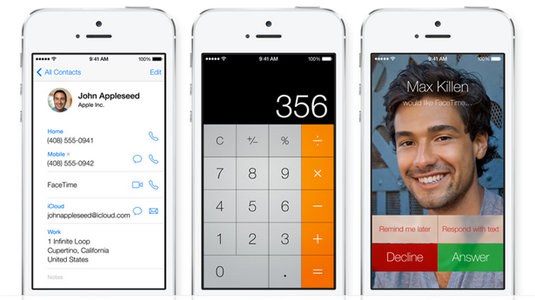
Apple ditches "too thin" font from iOS 7
Beta 3 introduces a new, thicker system font to the new operating system. What else might Apple change before the full release?
When it comes to design, Apple has in the past been characterised - in both positive and negative terms - as perfectionist control freaks. But here's a clear sign that's no longer the case. With the release of the third beta of iOS 7, it's responded to widespread criticism among designers of its typography - and replaced the strikingly thin system font Helvetica Neue Light altogether. Downloading the new version of the iOS 7 beta now sets the main font as the thicker Helvetica Neue Regular.
So far the response has been a positive one from the design community. As Marco Arment, creator of Instapaper, argues in this blog post: "Light weights look cool (more so at larger sizes) and work well in advertising and logos, but are generally harder to read. The system font’s most important job is to be legible to as many people as possible in as many conditions as possible, so the previous choice was simply a bad design choice."
If something as fundamental as a system font can be changed at this stage then two things are clear: Apple is clearly listening to designers, and the design of iOS 7 is clearly not set in stone. Is there anything else you'd like to see changed before the full release? We'd love to hear your views in the comments below...